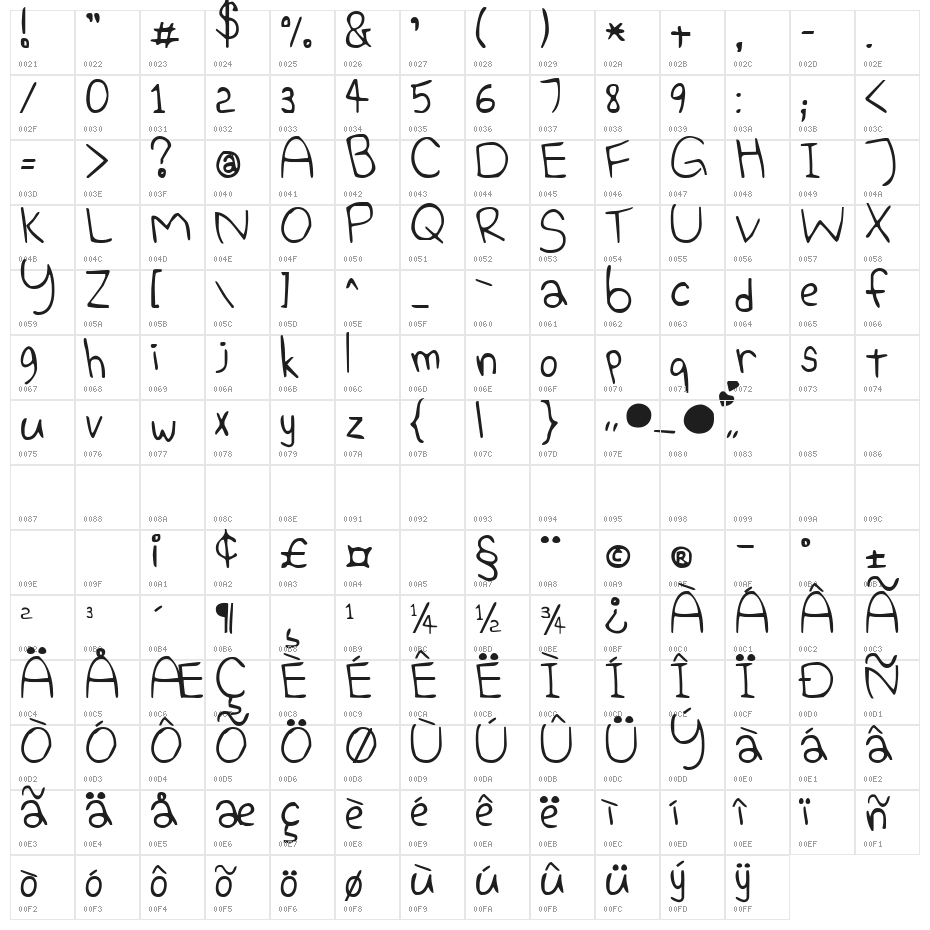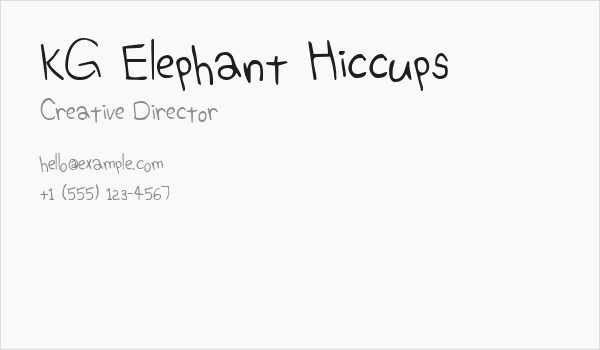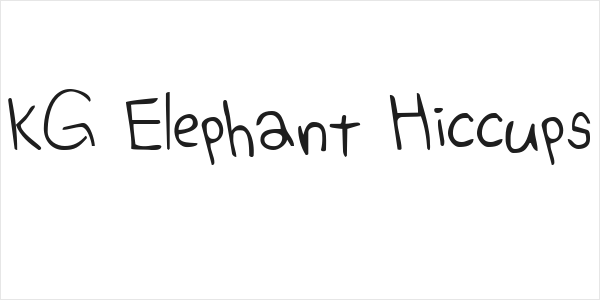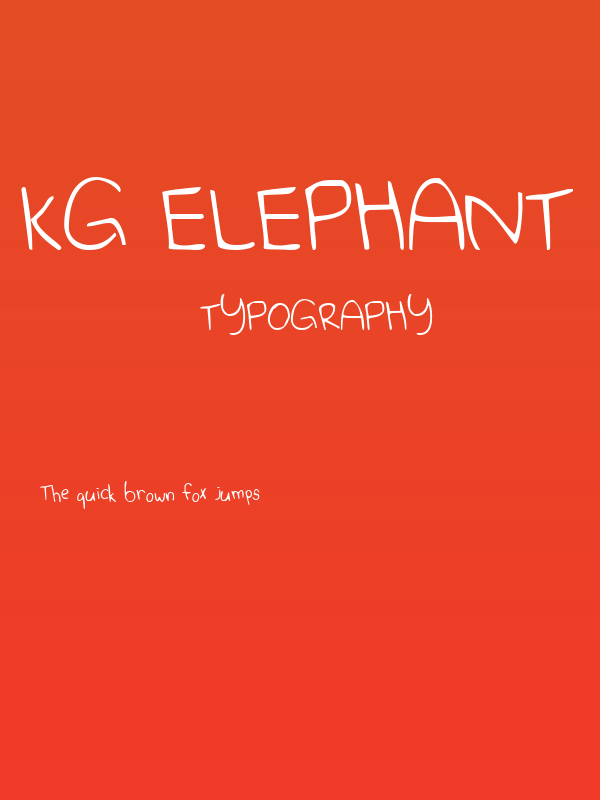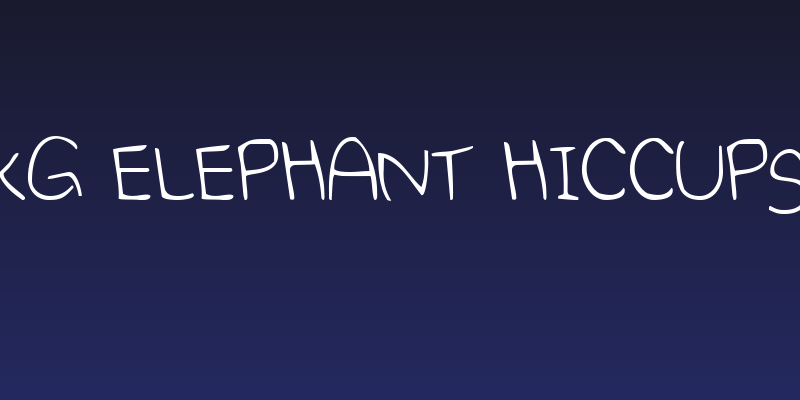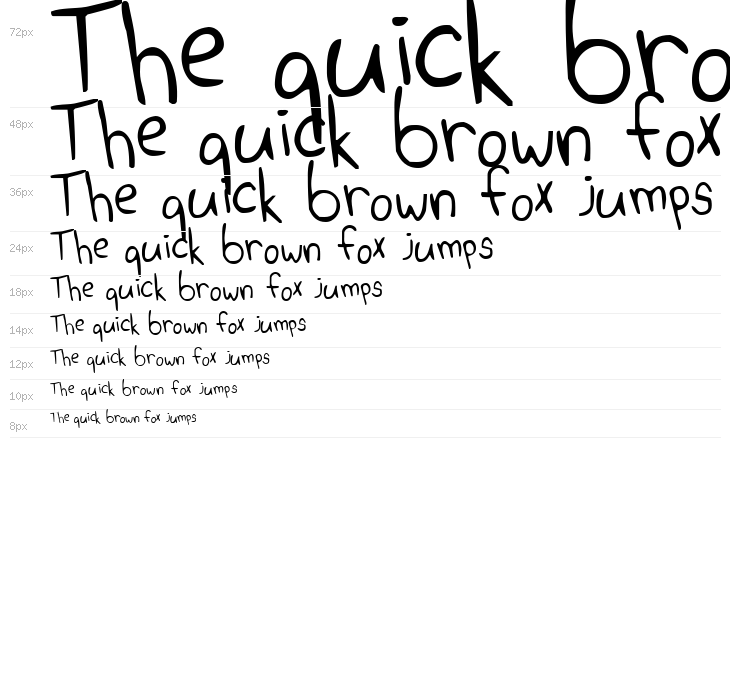
KG Elephant Hiccups Font
KG Elephant Hiccups Description
This playful and whimsical font features a hand-drawn aesthetic with irregular, slightly wavy lines that give it a casual and friendly appearance. The characters are rounded and uneven, adding to the charm and informal style. The uppercase and lowercase letters maintain a consistent style, with a slight tilt and varying stroke thickness that enhances the handwritten feel. Numbers and special characters follow the same playful design, making the font versatile for creative projects. Its unique style is perfect for adding a personal touch to any design.
Overall StyleWhimsical
Use CaseHeadlines, Logos, Informal Text
Proposed ProjectsIdeal for children's books, greeting cards, playful branding, and informal invitations.